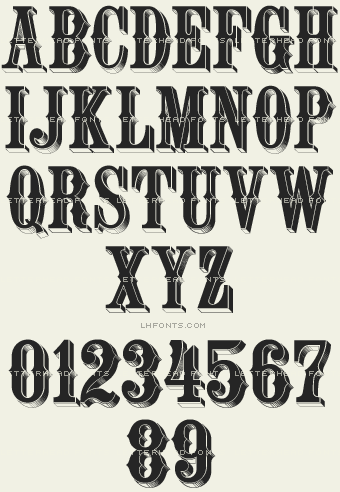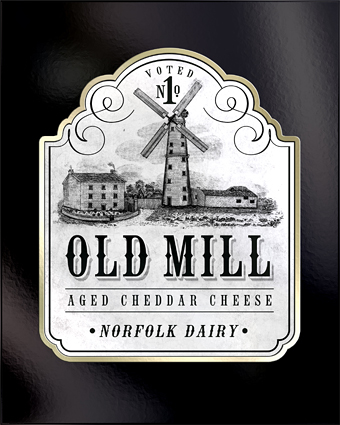
LHF Old Tom is a condensed vintage style originally inspired by a late 1800's "French Condensed" sign painter's style. Complete set consists of 6 fonts, including 3D block shadows and highlights. You might also like: Colonial Roman & Bootcut.